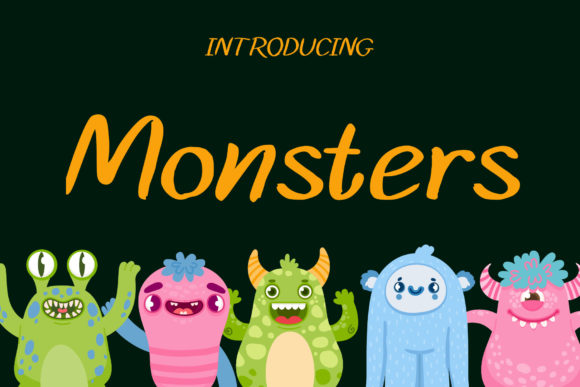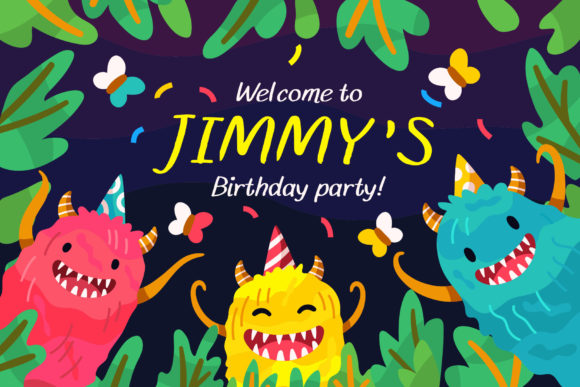
About Monsters Font
Monsters is a lovely paint brushed handwritten font, designed to be fun, cute, bright, and easy to read. It can be used for a variety of applications, such as designing birthday cards, designing shirts, mugs, cloth bags, and more.